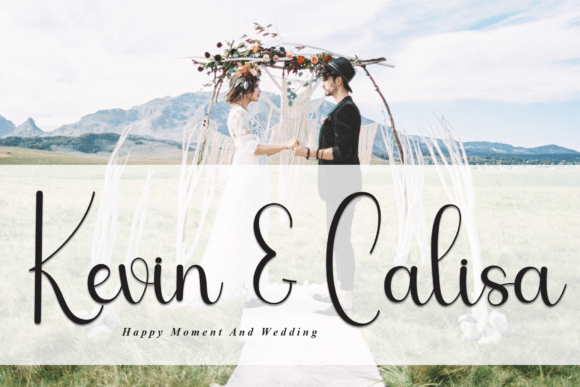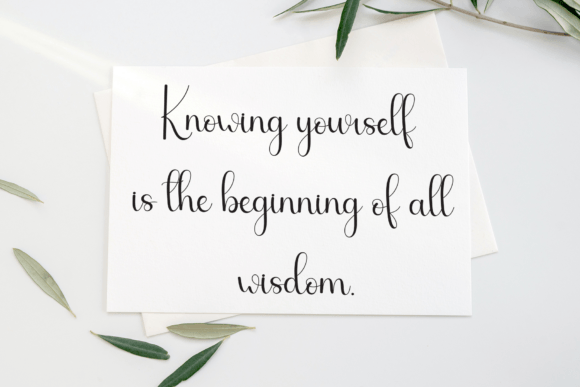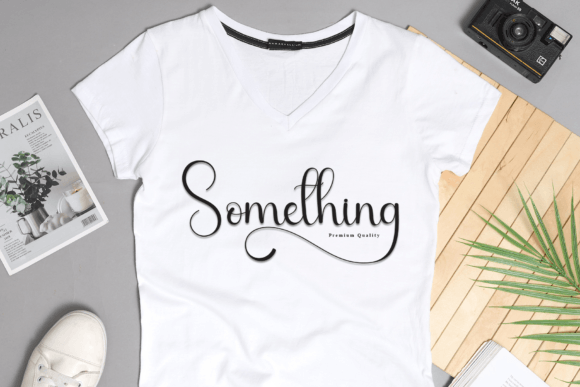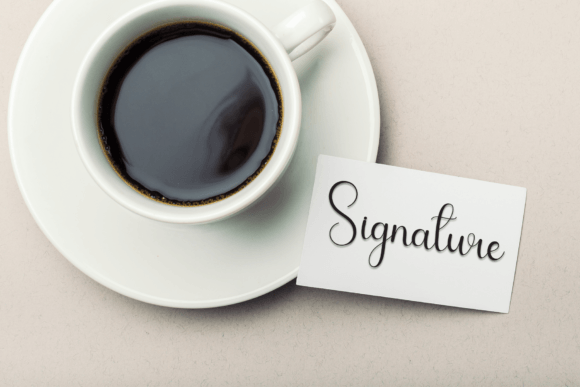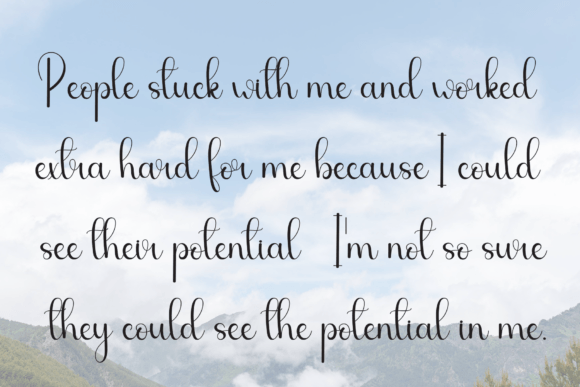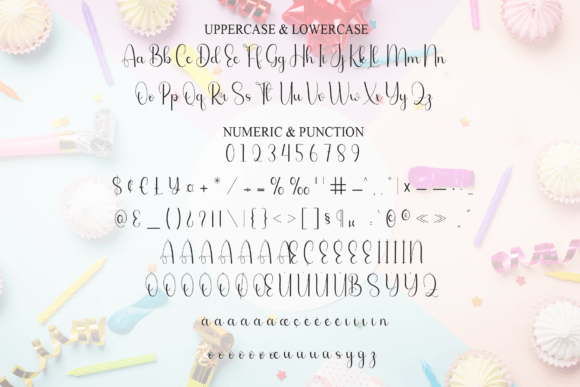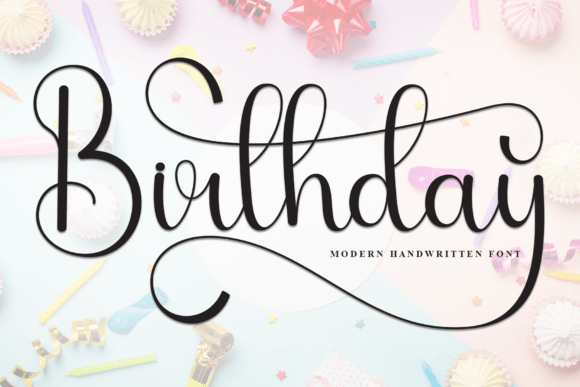
Introducing Birthday Font: Elevate Your Designs with Elegance and Charm
Are you looking for a font that adds a touch of sophistication and whimsy to your designs? Look no further than Birthday Font, a stylish handwritten script font that exudes elegance and charm. With its fluid, graceful strokes, Birthday Font is perfect for designers and crafters seeking to create beautiful branding, invitations, and stationery that leave a lasting impression.
The Beauty of Birthday Font
Birthday Font boasts smooth curves and a natural flow, creating a timeless, refined look that’s perfect for a variety of design applications. The font’s fluid strokes and elegant letterforms evoke a sense of luxury and sophistication, making it ideal for high-end branding, wedding invitations, and premium stationery. Whether you’re designing for digital or print, Birthday Font is sure to elevate your work and leave a lasting impression.
- Fluid, Graceful Strokes: Birthday Font features smooth, flowing strokes that create a sense of elegance and refinement.
- Handwritten Script Style: The font’s handwritten script style adds a personal touch to your designs, making them feel more approachable and inviting.
- Timeless, Refined Look: The font’s classic design ensures that your work will remain stylish and relevant for years to come.
- Perfect for Branding, Invitations, and Stationery: Birthday Font is ideal for a variety of design applications, from business branding to wedding invitations and stationery.
Uses for Birthday Font
Birthday Font is a versatile font that can be used in a variety of design applications, including:
- Branding: Use Birthday Font to create elegant and sophisticated branding for your business, including logos, business cards, and letterheads.
- Invitations: Add a touch of luxury to your wedding invitations, birthday party invitations, and other special event invitations with Birthday Font.
- Stationery: Use Birthday Font to create beautiful stationery, including notecards, journals, and planners.
- Digital Design: Birthday Font is perfect for digital design applications, including social media graphics, email newsletters, and website headers.
Tips for Using Birthday Font
To get the most out of Birthday Font, follow these tips:
- Use it sparingly: Birthday Font is a statement font, so use it sparingly to add emphasis and elegance to your designs.
- Pair it with complementary fonts: Pair Birthday Font with complementary fonts to create visual interest and hierarchy in your designs.
- Experiment with colors: Experiment with different colors and textures to add depth and visual interest to your designs.
Birthday Font is a beautiful, elegant font that’s perfect for designers and crafters seeking to add a touch of sophistication and whimsy to their designs. With its fluid, graceful strokes and timeless, refined look, Birthday Font is ideal for a variety of design applications, from branding and invitations to stationery and digital design. Whether you’re a seasoned designer or just starting out, Birthday Font is sure to elevate your work and leave a lasting impression.